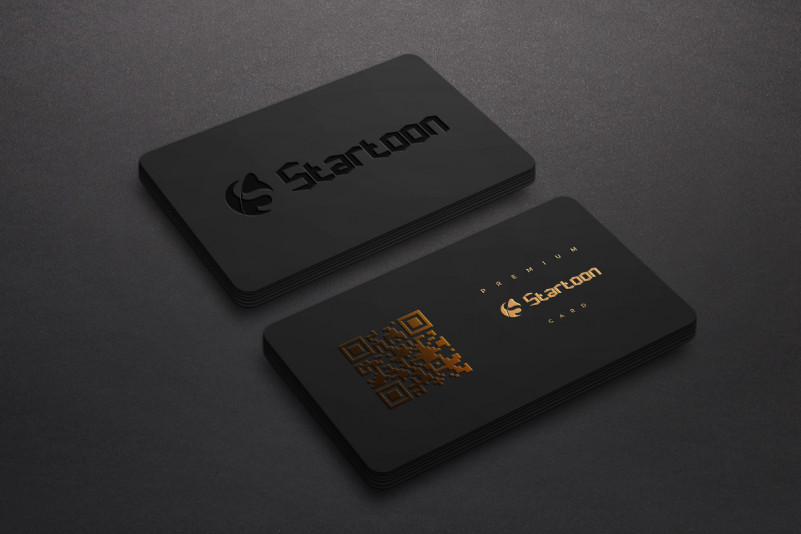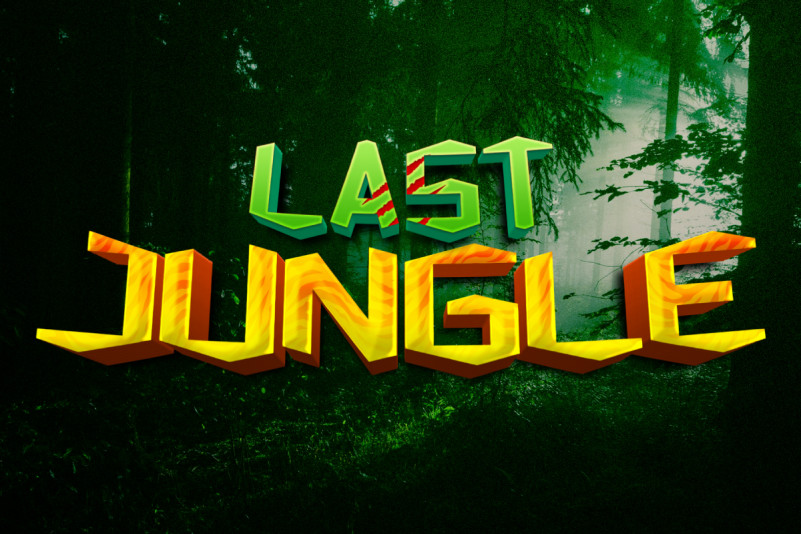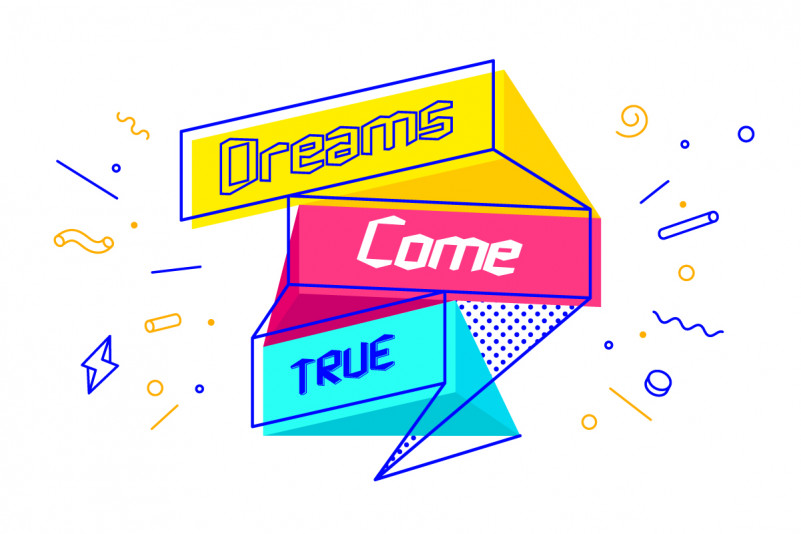
Cubical Font
Cubical Display Font
This is a display uniquely modern sans serif font with special shapes. This font has futuristic and techno style that looks stunning in just about every context. Use it for logos, print, collage, body text, and more!
Cubical Display Font includes full set of Uppercase and Lowercase Basic Characters, Numerals and Punctuation. Also it contains ligatures to make it flowless characters to perfectly make awesome look that add more aesthetic fonts to perfect your extraordinary project. Cubical will be great for Use it for any project that needs a unique, authentic look! Perfect for branding, labels, headline, posters, websites and so much more!